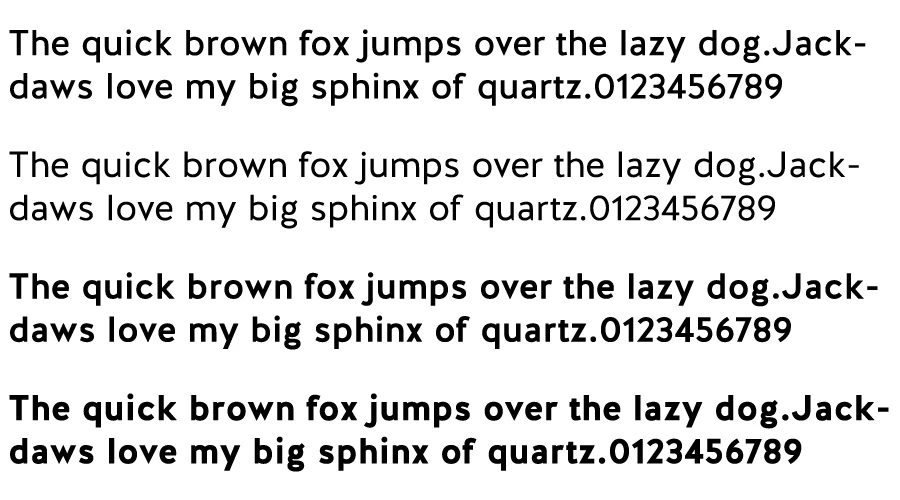
Halis Grotesque is a sans-serif typeface designed in 2012 by Turkish type designer Ahmet Altun. The Halis Grotesque font family members arrive in 8 weights of Typical and Italic. The name of the font means “pure, clean.” The Halis Grotesque Font Family has the new Turkish Lira Sign as well as an alternative ampersand created by Prof.
With the Halis Grotesque Font Family, you can create beautiful works for the web, including logos, banners, body copy, and presentations. Halis Grotesque also works nicely in print formats such as posters, T-shirts, magazines, and affiches. Because of its eye-pleasing style, this font is both effective and versatile. This font is also perfect for official documents and printing purpose.
| Style | Sans-serif |
| Designer | Ahmet Altun. |
What type of font is Halis Grotesque Font?
Ans:Halis Grotesque is a sans-serif typeface designed in 2012 by Turkish type designer Ahmet Altun.